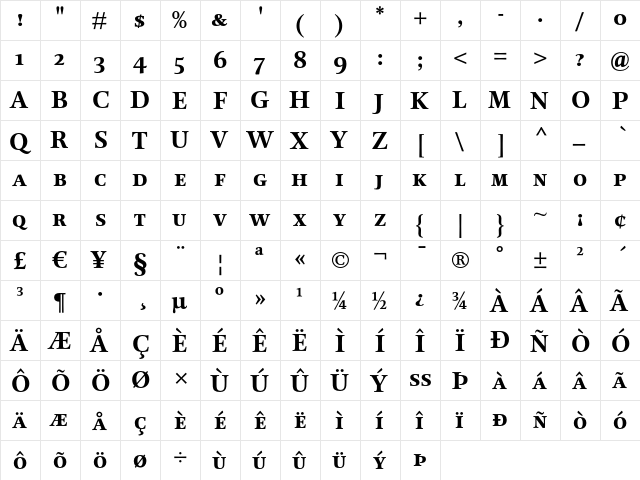
Mentor Bold SC
Design Context for Mentor Typeface
Mentor offers clean, dependable letterforms without strong stylistic allegiance, making it a practical choice for designers who need flexibility. The heavy weight commands attention and anchors typographic hierarchies.
Pro Tip: Pair Mentor with a font of contrasting weight or personality to build a more expressive typographic hierarchy.